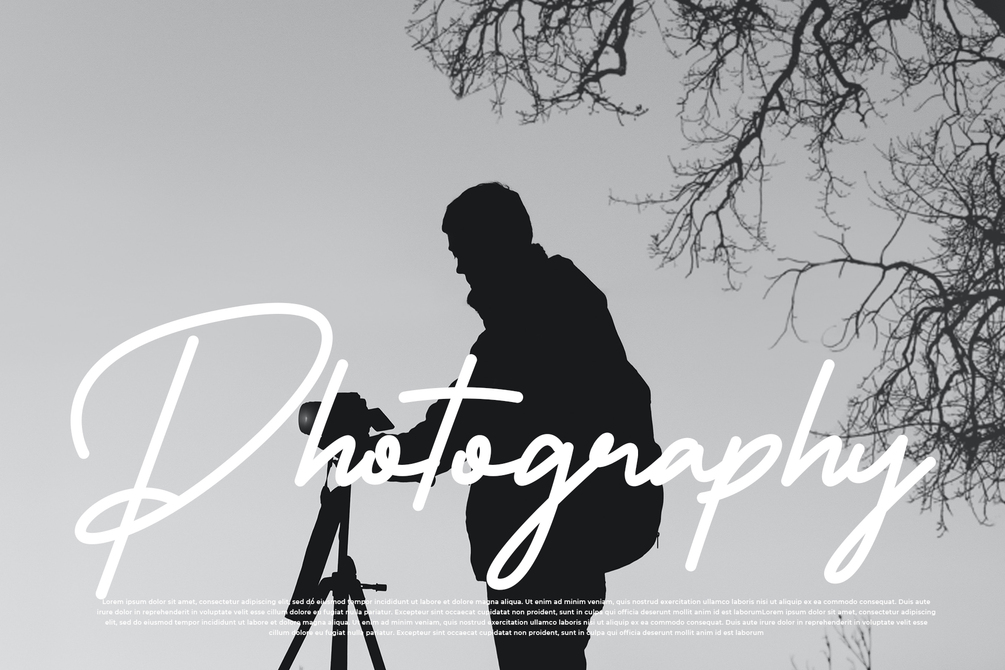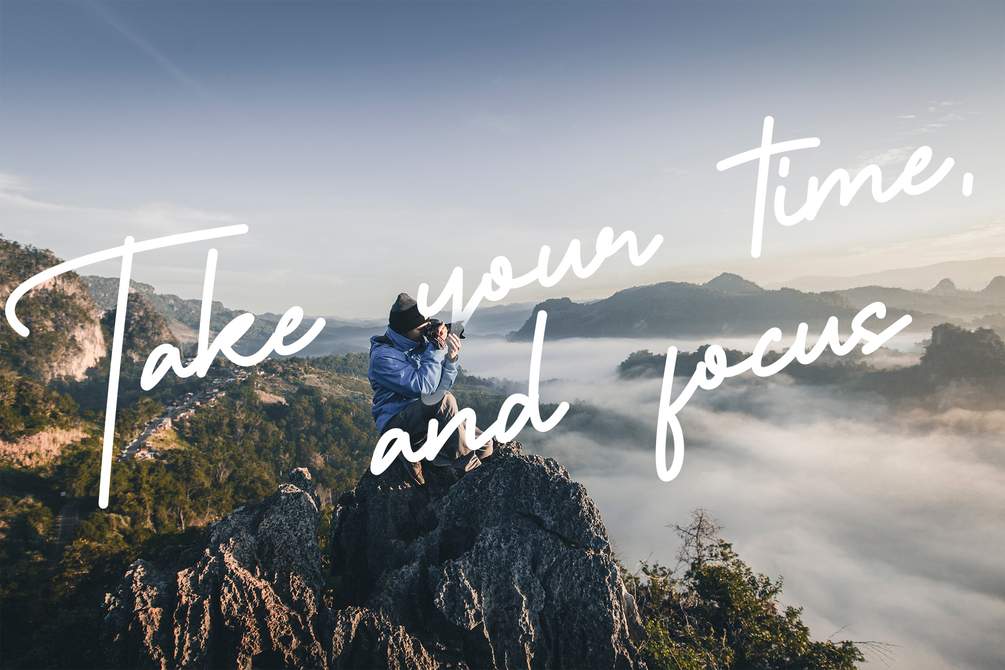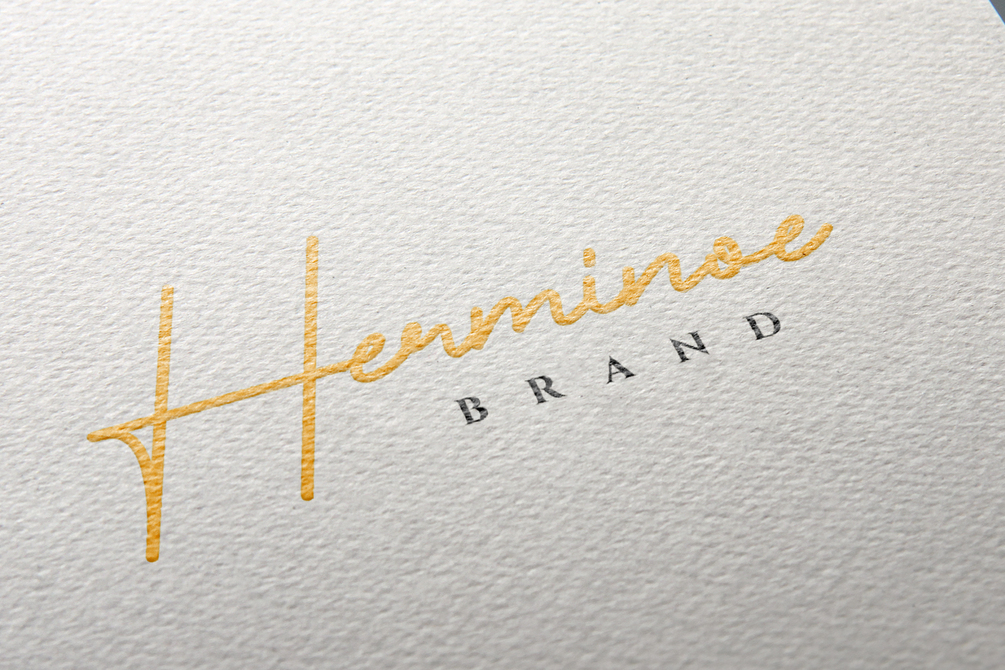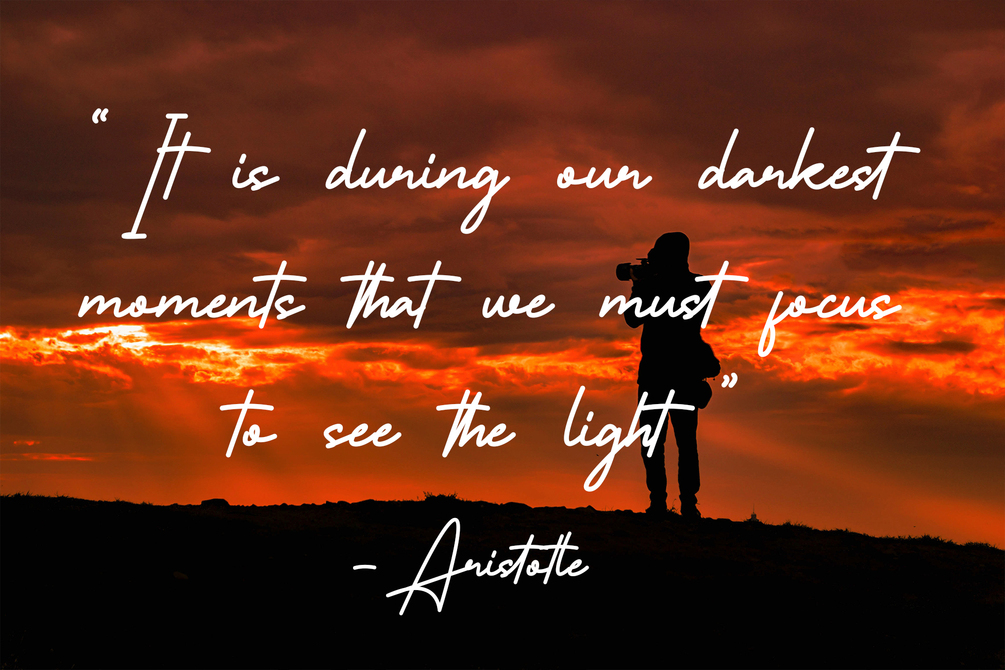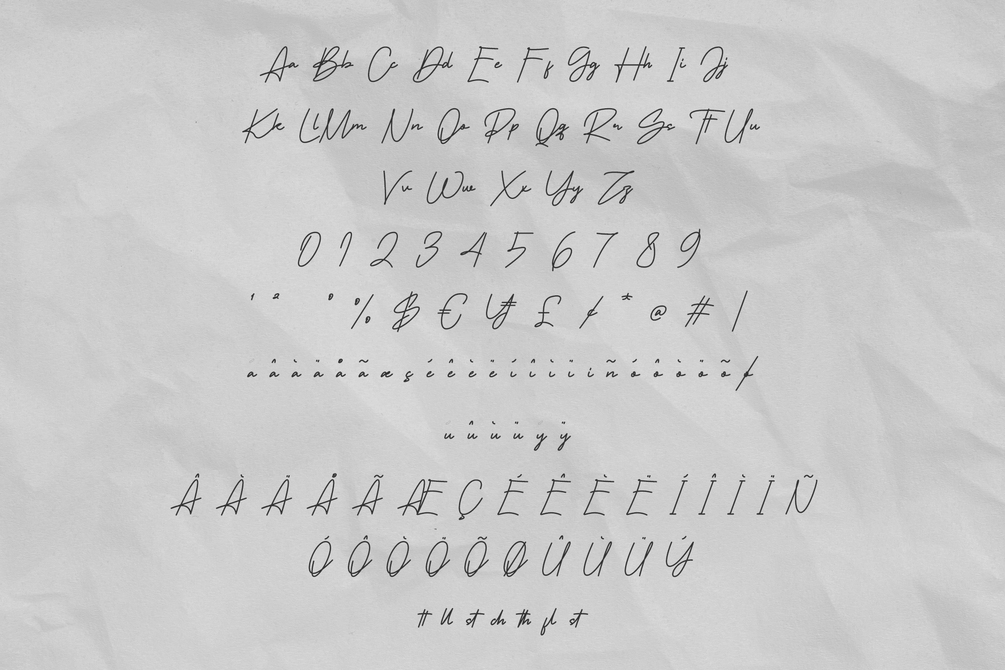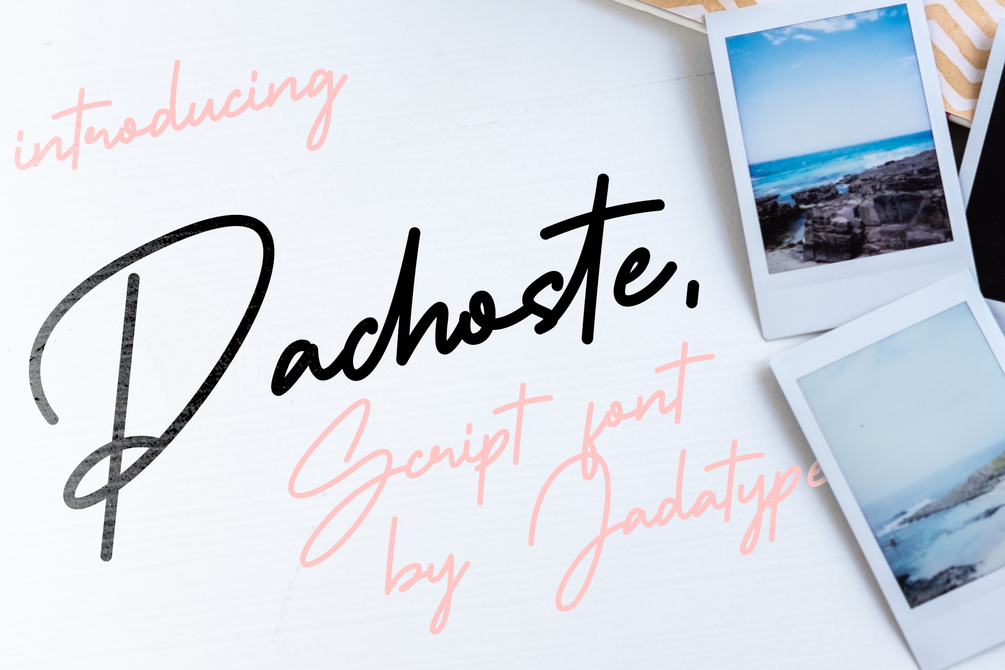
Pachoste Font
Pachoste is a script font with a monoline style. suitable for social media, logotype, craft, advertisements, and so on. contains standard English letters, numbers, punctuation, and several accents that support multilingualism.